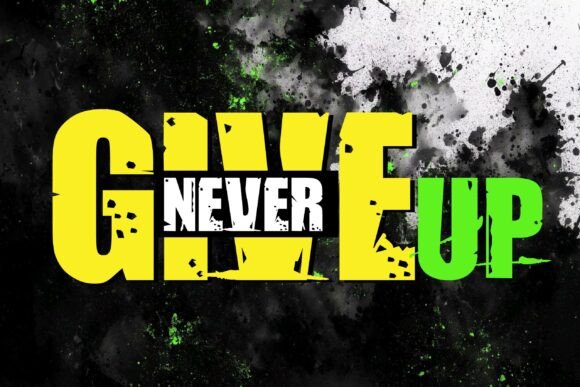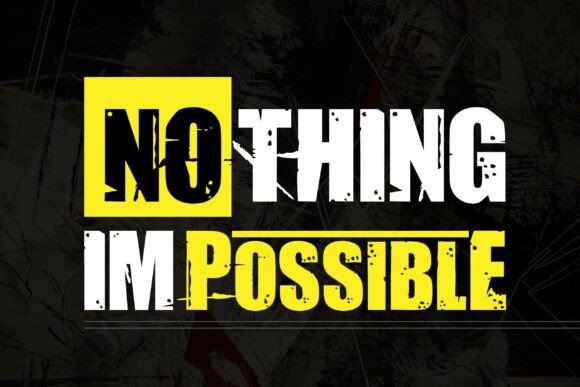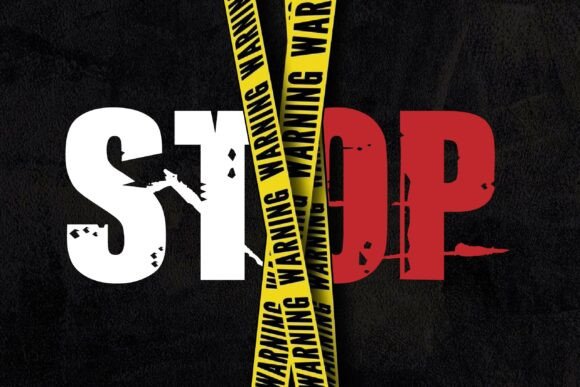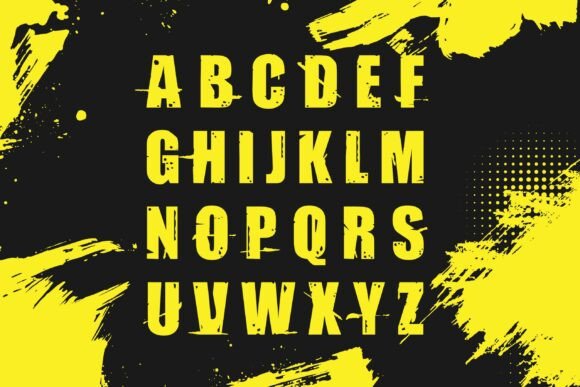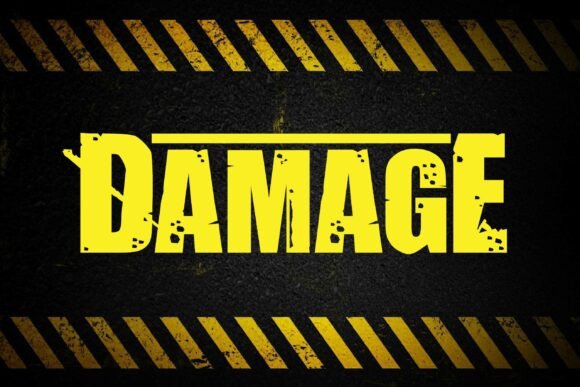
Unleash Your Creativity with Damage Font: A Bold and Stylish Decorative Font
In the world of graphic design, a font can make all the difference in bringing a project to life. If you’re looking for a font that exudes a rugged and expressive personality, look no further than Damage Font. Crafted by Gothic, Damage is a bold and stylish decorative font that is perfect for designers seeking a powerful grunge-style font that stands out in modern graphic design.
What is Damage Font?
Damage Font is a decorative font designed with a distinctive grunge-inspired style. Its strong display quality makes it perfect for a variety of applications, including movie titles, cartoon names, game titles, and striking T-shirt designs. With its edgy texture and artistic form, Damage adds a rugged and expressive personality to any project.
Key Features of Damage Font
- Bold and Stylish Design: Damage Font features a bold and stylish design that is sure to grab attention. Its grunge-inspired style gives it a unique and edgy look that sets it apart from other fonts.
- High Display Quality: With its strong display quality, Damage Font is perfect for use in a variety of applications, including movie titles, cartoon names, and game titles.
- 96 Carefully Designed Glyphs: Damage Font features 96 carefully designed glyphs, giving designers a wide range of creative options.
- 95 Characters: With 95 characters, Damage Font offers both visual impact and creative flexibility.
- Perfect for Designers: Damage Font is perfect for designers seeking a powerful grunge-style font that stands out in modern graphic design.
Uses of Damage Font
Damage Font is a versatile font that can be used in a variety of applications, including:
- Movie Titles: Damage Font is perfect for creating eye-catching movie titles that grab the audience’s attention.
- Cartoon Names: With its bold and stylish design, Damage Font is perfect for creating cartoon names that are both fun and engaging.
- Game Titles: Damage Font is perfect for creating game titles that are both bold and attention-grabbing.
- T-Shirt Designs: Damage Font is perfect for creating striking T-shirt designs that are sure to turn heads.
Why Choose Damage Font?
There are many reasons why designers and crafters should choose Damage Font for their projects. Here are just a few:
- Unique Design: Damage Font features a unique and edgy design that sets it apart from other fonts.
- Highly Versatile: Damage Font is a highly versatile font that can be used in a variety of applications.
- Easy to Use: With its 96 carefully designed glyphs and 95 characters, Damage Font is easy to use and offers a wide range of creative options.
- Perfect for Grunge-Style Designs: Damage Font is perfect for designers seeking a powerful grunge-style font that stands out in modern graphic design.
In conclusion, Damage Font is a bold and stylish decorative font that is perfect for designers seeking a powerful grunge-style font that stands out in modern graphic design. With its strong display quality, 96 carefully designed glyphs, and 95 characters, Damage Font offers both visual impact and creative flexibility. Whether you’re creating movie titles, cartoon names, game titles, or striking T-shirt designs, Damage Font is the perfect choice.